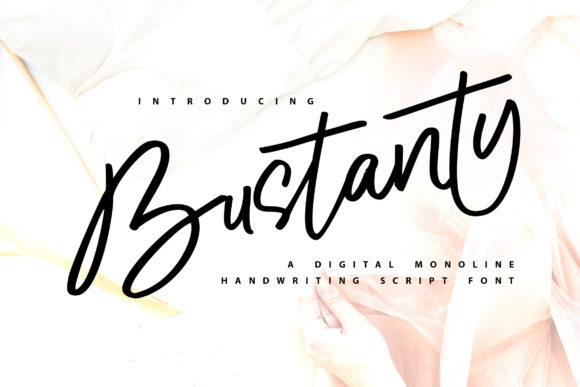
The Magic of Bustanty Font: Elevate Your Designs with Romance and Elegance
I still remember the time I was working on a wedding invitation project, and my client asked for a font that would make their special day feel like a fairytale. I scoured the internet, tried countless fonts, but nothing seemed quite right. That was until I stumbled upon Bustanty Font. ✨ This dainty and flowing script font instantly captured the essence of romance and elegance I was looking for. In this article, I’ll share my experience with Bustanty, its features, and how to make the most of it in your designs.
An Honest Review of Bustanty Font
What I Love About Bustanty
- ✨ Romantic and Lovely Aesthetic: Bustanty has a unique, flowing script style that adds a touch of elegance to any design.
- ✅ PUA Encoded: The font is PUA encoded, making it easy to access all glyphs and swashes.
- 💕 Perfect for Love Letters and Wedding Invitations: The font’s romantic feel makes it ideal for projects that require a personal touch.
While Bustanty is a beautiful font, there are a few things to keep in mind: ⚠️ It may not be suitable for very large or bold designs, as its delicate nature might get lost. 🤔 Some users might find the font a bit challenging to read in smaller sizes or at a distance.
The Backstory of Bustanty Font
Bustanty Font was designed with the intention of capturing the essence of romance and elegance. While the actual designer and inspiration behind Bustanty might not be widely known, it’s clear that the font was created with love and attention to detail. The designer’s goal was to create a font that would make users feel like they’re writing with a personal touch.
Q: Does Bustanty support OpenType features?
A: Yes, Bustanty is PUA encoded and supports OpenType features, making it easy to access swashes and glyphs.